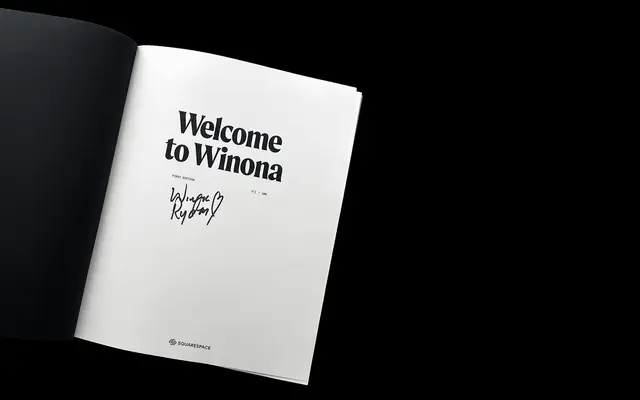
A display serif family drawing on 20th-century European sign painting, available in five weights with upright and oblique styles.
Combining calligraphic influences with the emphatic weight contrast of sign-painted letterforms, Moret is designed primarily for headlines and editorials. The family runs across five weights from Light to Black, each with an oblique companion, and includes a variable font alongside the ten static styles. Each font covers 466 glyphs with support for over 265 Latin-based languages, and OpenType features include ligatures, fractions and tabular figures.
Described explicitly as a serif display type family inspired by 20th-century European sign painting, blending calligraphic concepts; the display category is confirmed by its headline and editorial focus and emphatic character.